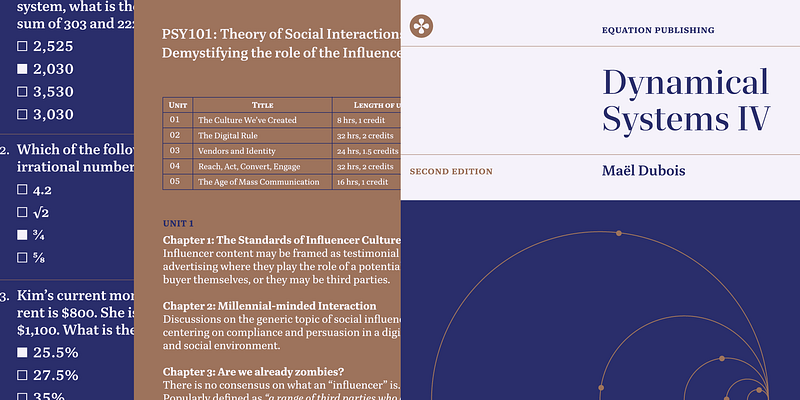
Quinn is a typeface for editorial design and publishing of all kinds. Although designer Diana Ovezea took cues from realist serif faces such as those of Johann Fleischmann, she imbued Quinn with enough personality to stand on its own in the modern age. The series consists of two optical sizes: Text in 10 styles for sizes between 6–24 points and Display in 14 styles for use above 24 points. This ample range facilitates complex typographic hierarchies and elaborate, varied layouts. Quinn includes an extensive set of elegant ligatures, symbols, figure types, and other OpenType features for flexible and feature-rich typesetting. Bold Monday, 2019. For additional license options like app, enterprise, multi-user, and self-hosted web, visit [Quinn Display on Type Network](https://store.typenetwork.com/foundry/boldmonday/series/quinn?family=quinn-display).